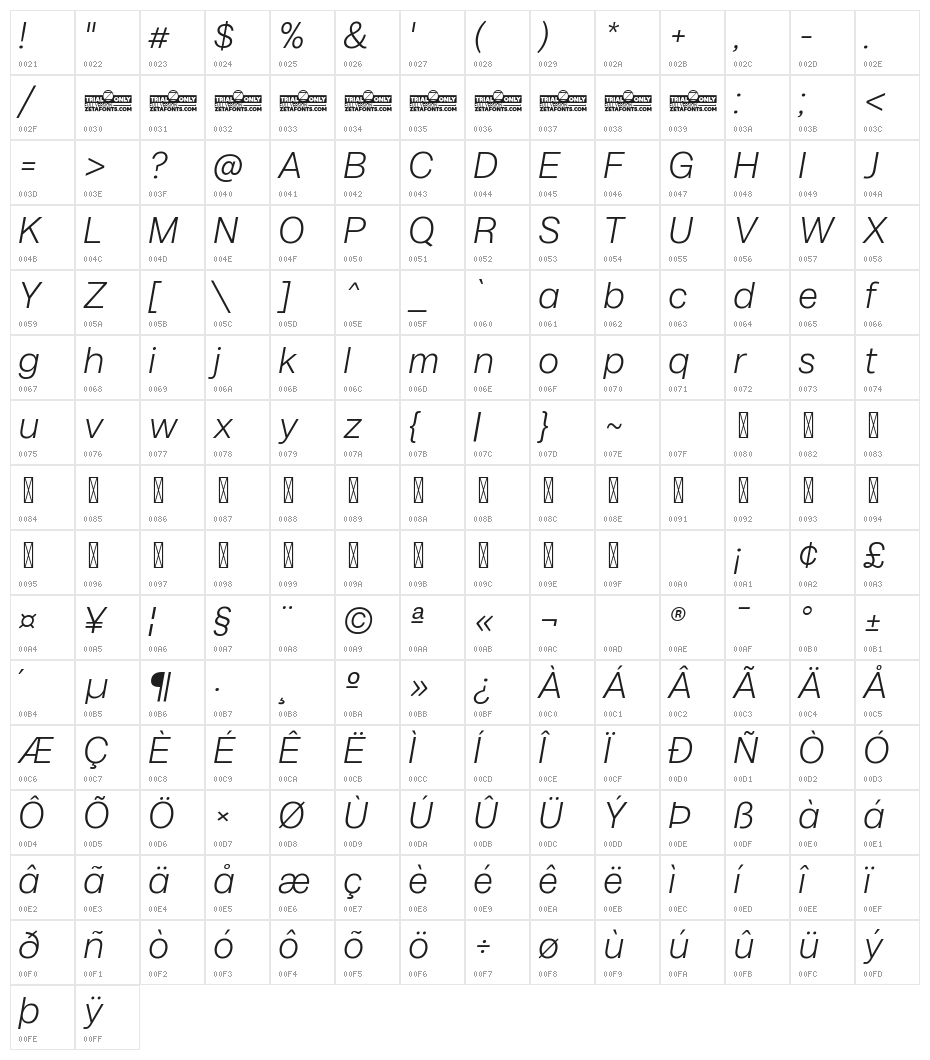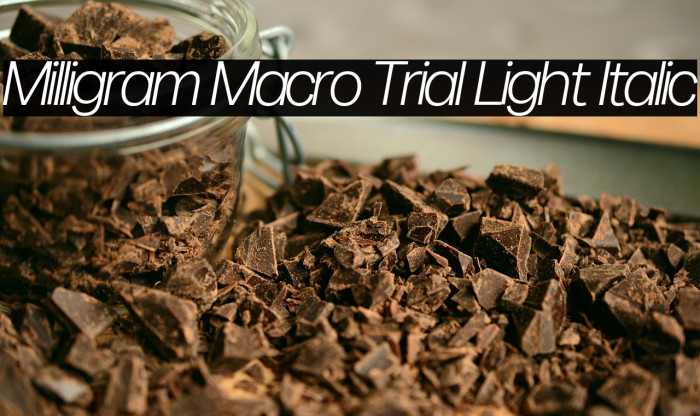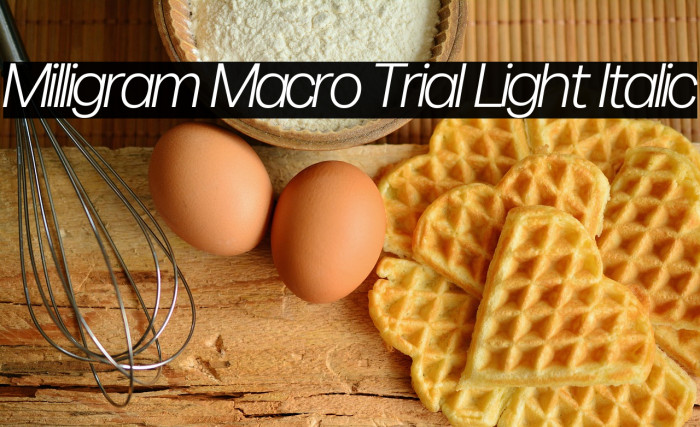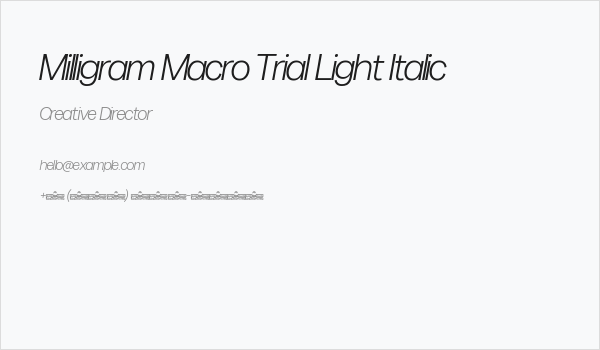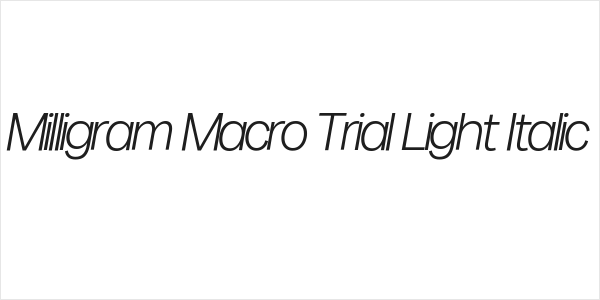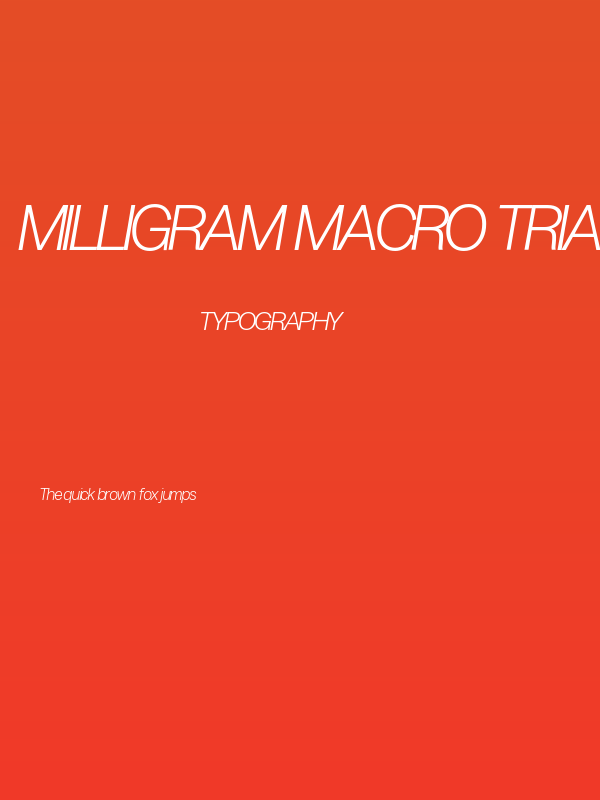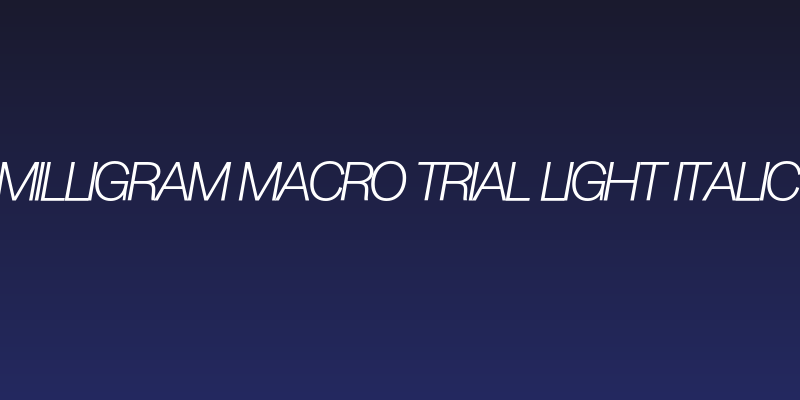
Milligram Macro Trial Light Italic Font
Milligram Macro Trial Light Italic Description
This typeface exhibits a sleek, modern aesthetic with its clean, geometric lines and subtle curves. The characters are uniformly designed, maintaining a consistent stroke width that contributes to its minimalist appeal. The italic style adds a dynamic slant, enhancing its contemporary feel. The font's light weight ensures readability while maintaining an elegant appearance. It features a full set of uppercase and lowercase letters, numbers, and a variety of special characters, making it versatile for various design needs. The overall design is uncluttered, with a focus on clarity and simplicity, making it suitable for modern digital and print applications.